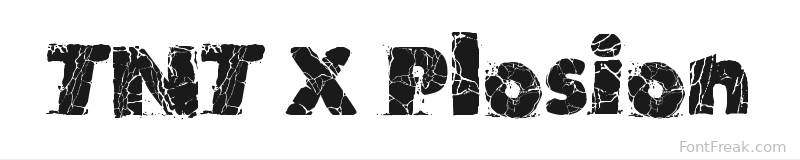
TNT X Plosion
TNT X Plosion is a striking display font designed by Galdino Otten Fonts, categorized as a decorative typeface. This font showcases a bold, rugged appearance with a unique distressed texture that gives it an explosive visual impact. The irregular stroke weight and intentional imperfections create an energetic vibe, making it an excellent choice for eye-catching designs. The spacing is adequately balanced to ensure legibility while maintaining its artistic flair, appealing to designers seeking a distinctive style.
This font is ideal for a variety of creative applications. It works particularly well in movie posters, where its dramatic flair can capture attention and evoke excitement. Additionally, TNT X Plosion is perfect for music event flyers, where the boldness can resonate with energetic themes. Its unique characteristics also make it suitable for restaurant menus, especially in establishments that want to convey a casual, fun atmosphere. Furthermore, the font can enhance branding for small businesses looking to make a memorable impression, particularly in industries focused on youth culture or adventure.
The target audience for this font includes graphic designers looking for a standout typeface to elevate their projects, small business owners aiming to create an engaging brand identity, and content creators who wish to add a dynamic touch to their visuals.
Ultimately, what sets the TNT X Plosion font apart is its ability to combine boldness with a sense of whimsy, making it versatile yet unique. The distinct style invites creativity, ensuring that any project using this font will not only stand out but also convey a sense of fun and adventure. For those interested, the TNT X Plosion font free download offers an excellent opportunity to incorporate this captivating typeface into your design toolkit.